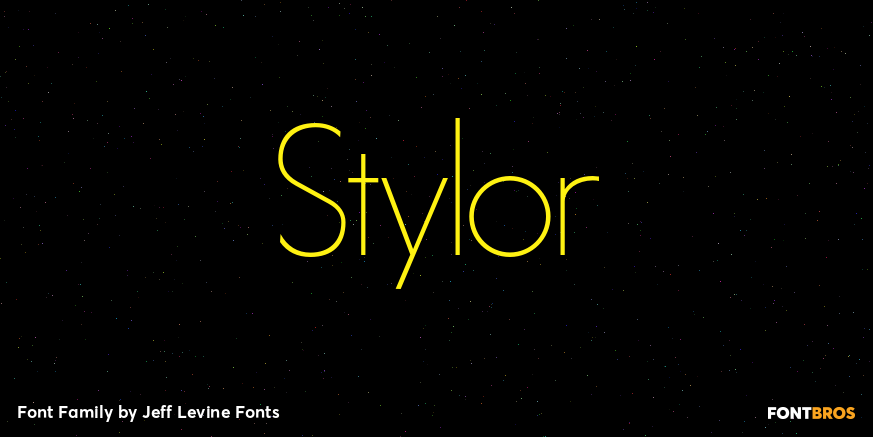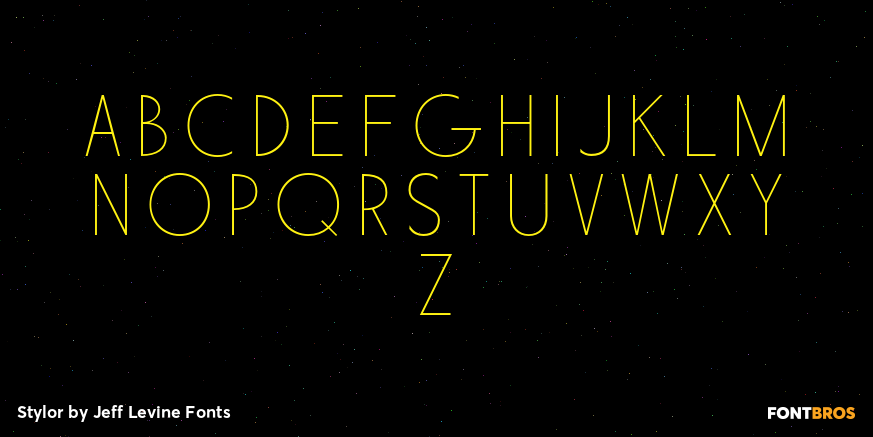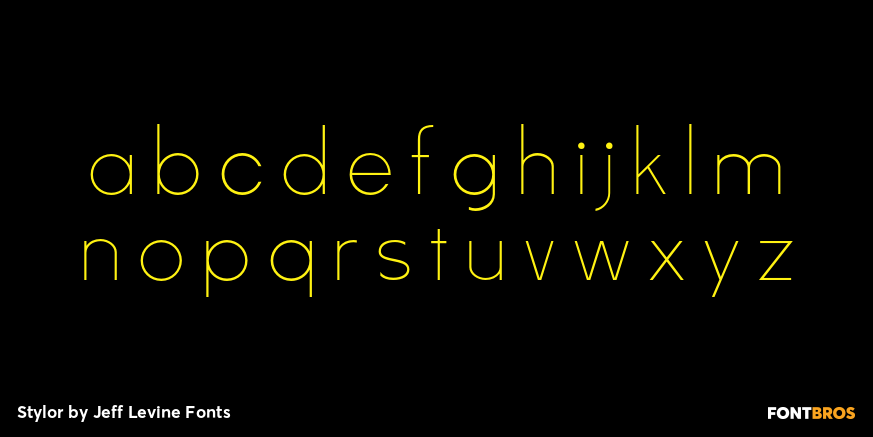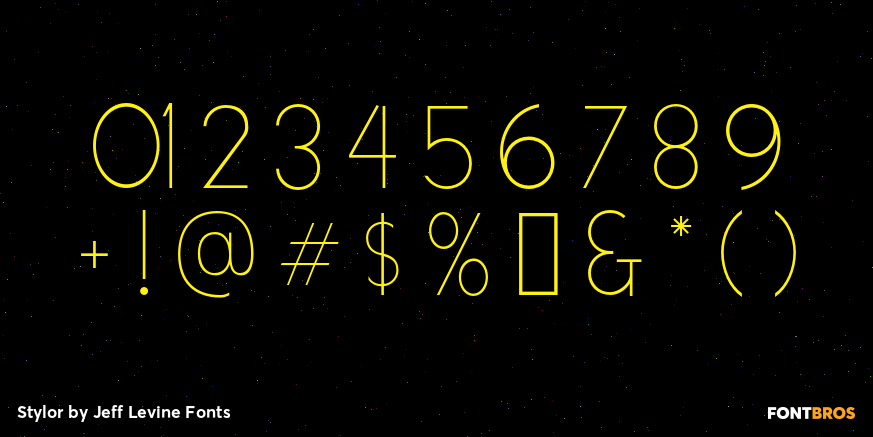
Stylor
Thin strokes, an Art Deco feel and useful in both text and display work... that's Stylor JNL by Jeff Levine.
Inspired by various designs of the past, this is Jeff's personal take on a classy form of Deco lettering.
Stylor Demi JNL is a bolder weight version of this popular monoline font.